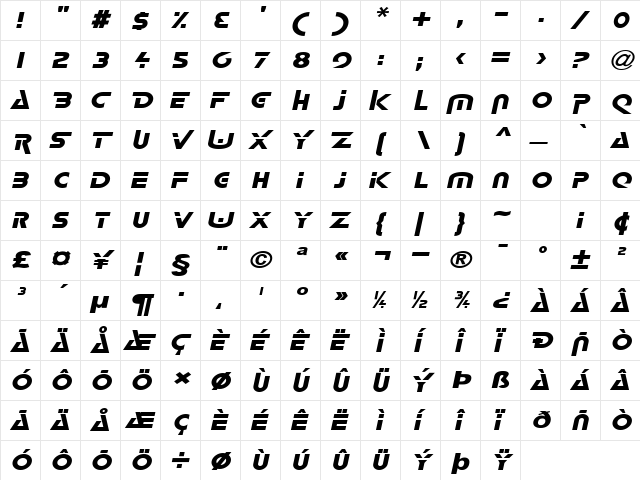
DeltaExtended Italic
Design Context for DeltaExtended Typeface
DeltaExtended takes a measured approach to typography — its balanced proportions and neutral character make it a reliable workhorse for both digital and print work. Its italic angle brings a sense of urgency and motion to the letterforms.
Pro Tip: Use DeltaExtended for emphasis, pull quotes, and subheadings where its slanted energy can add rhythm to the layout.